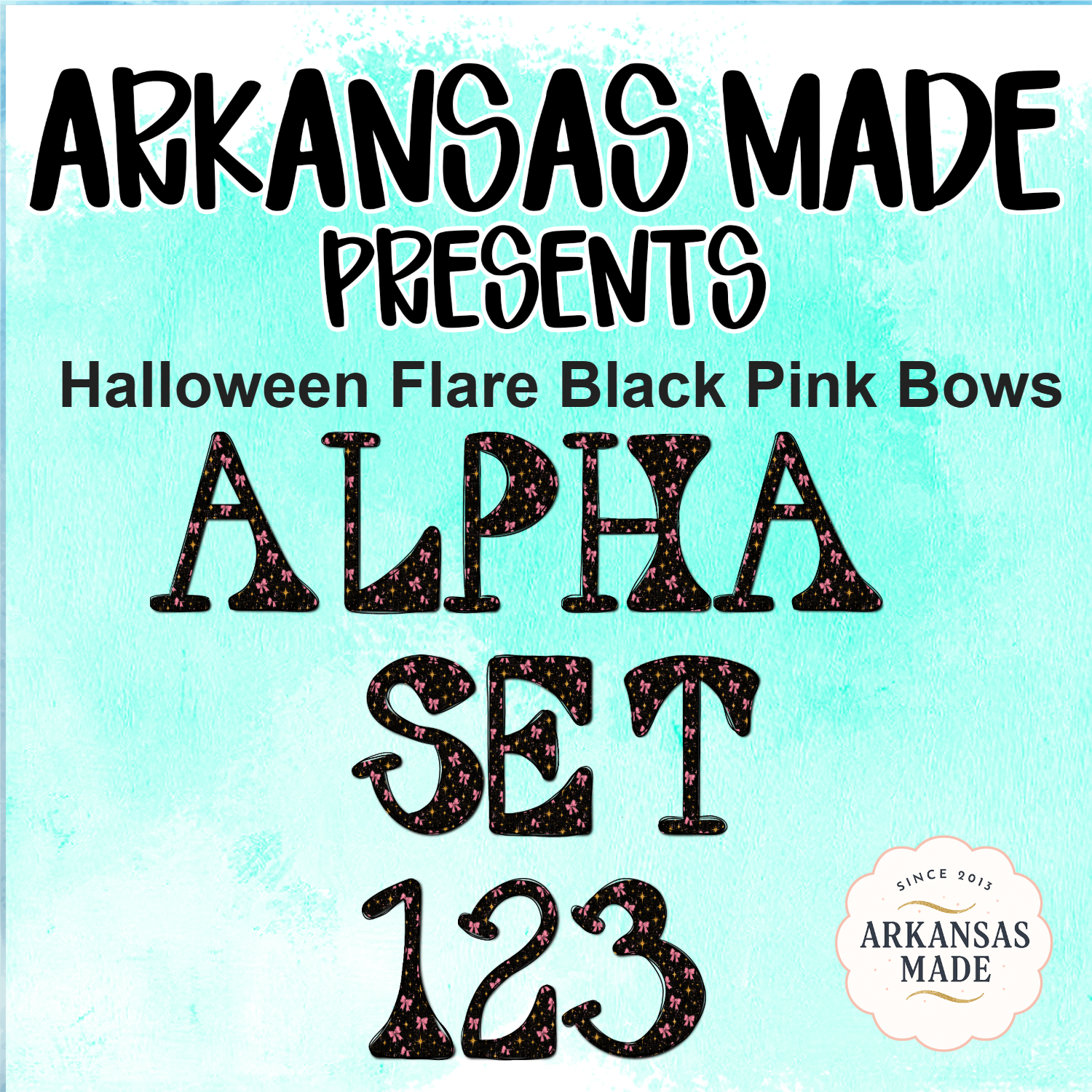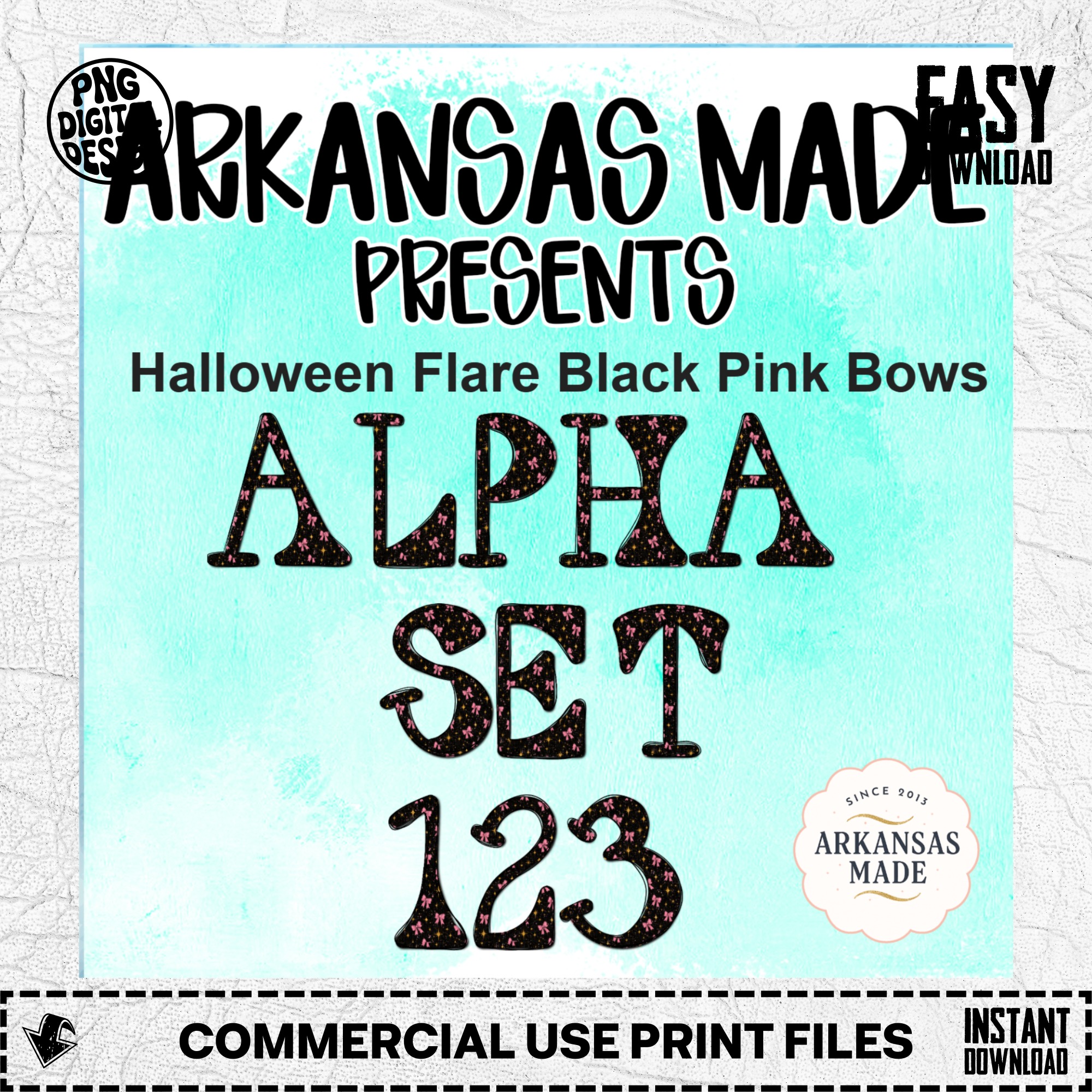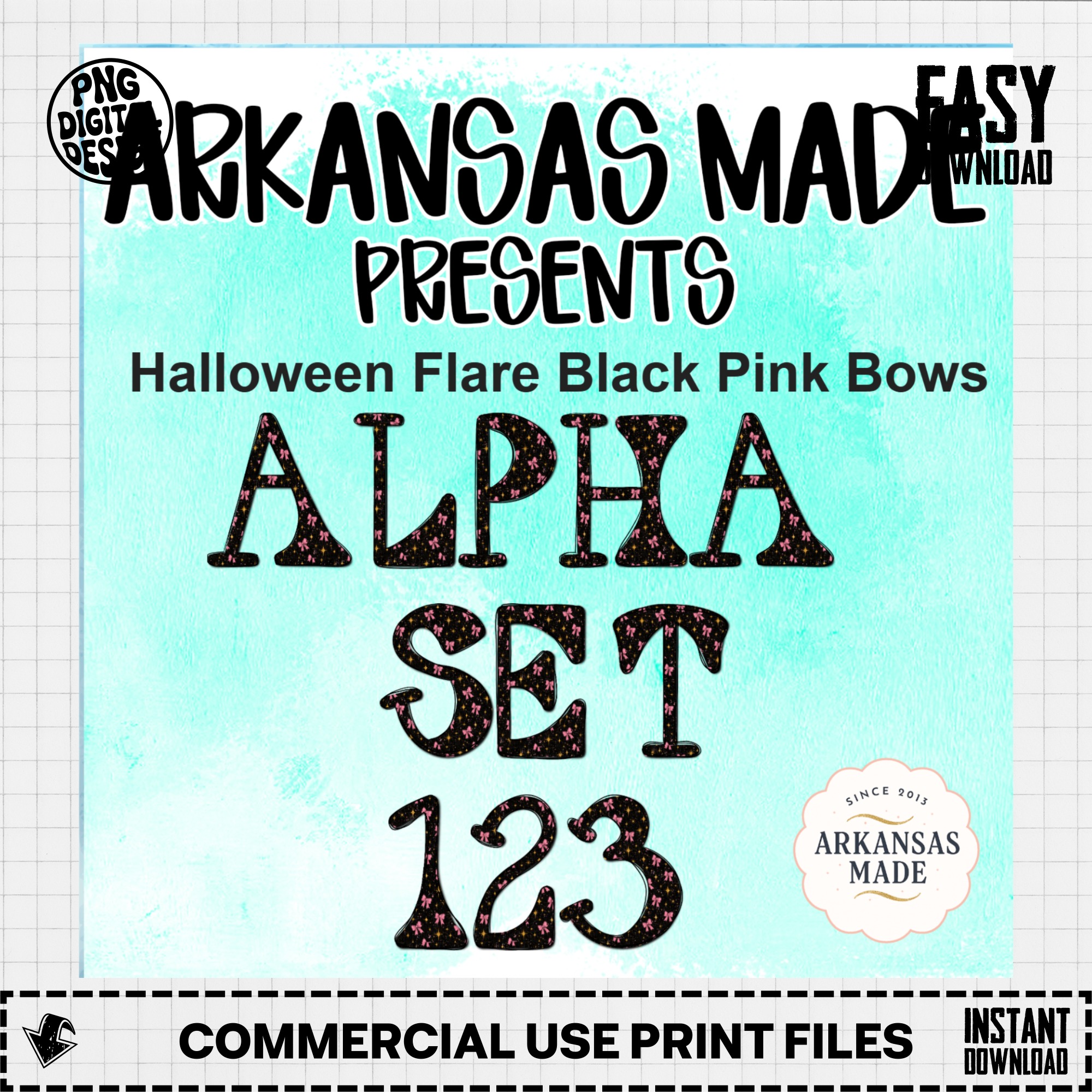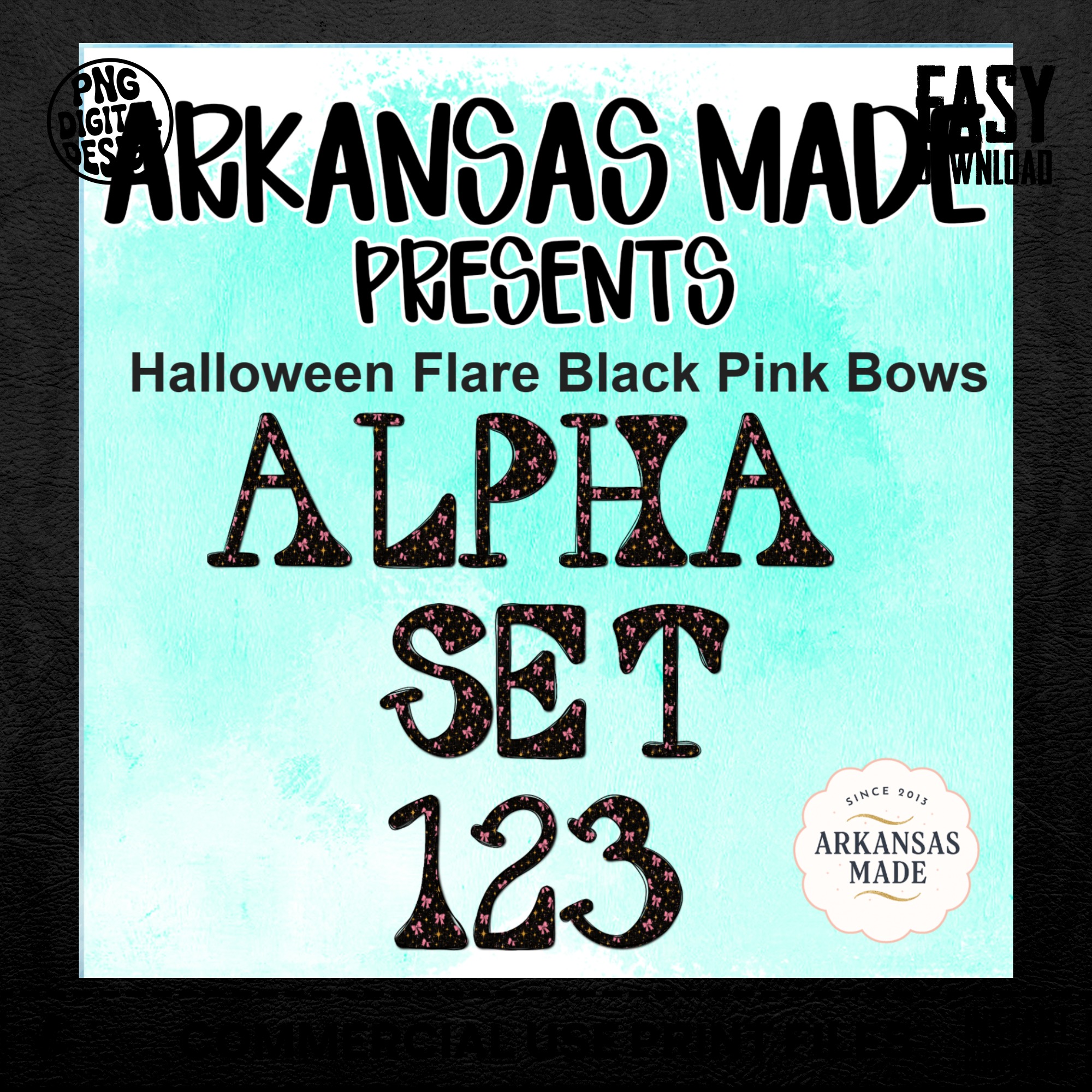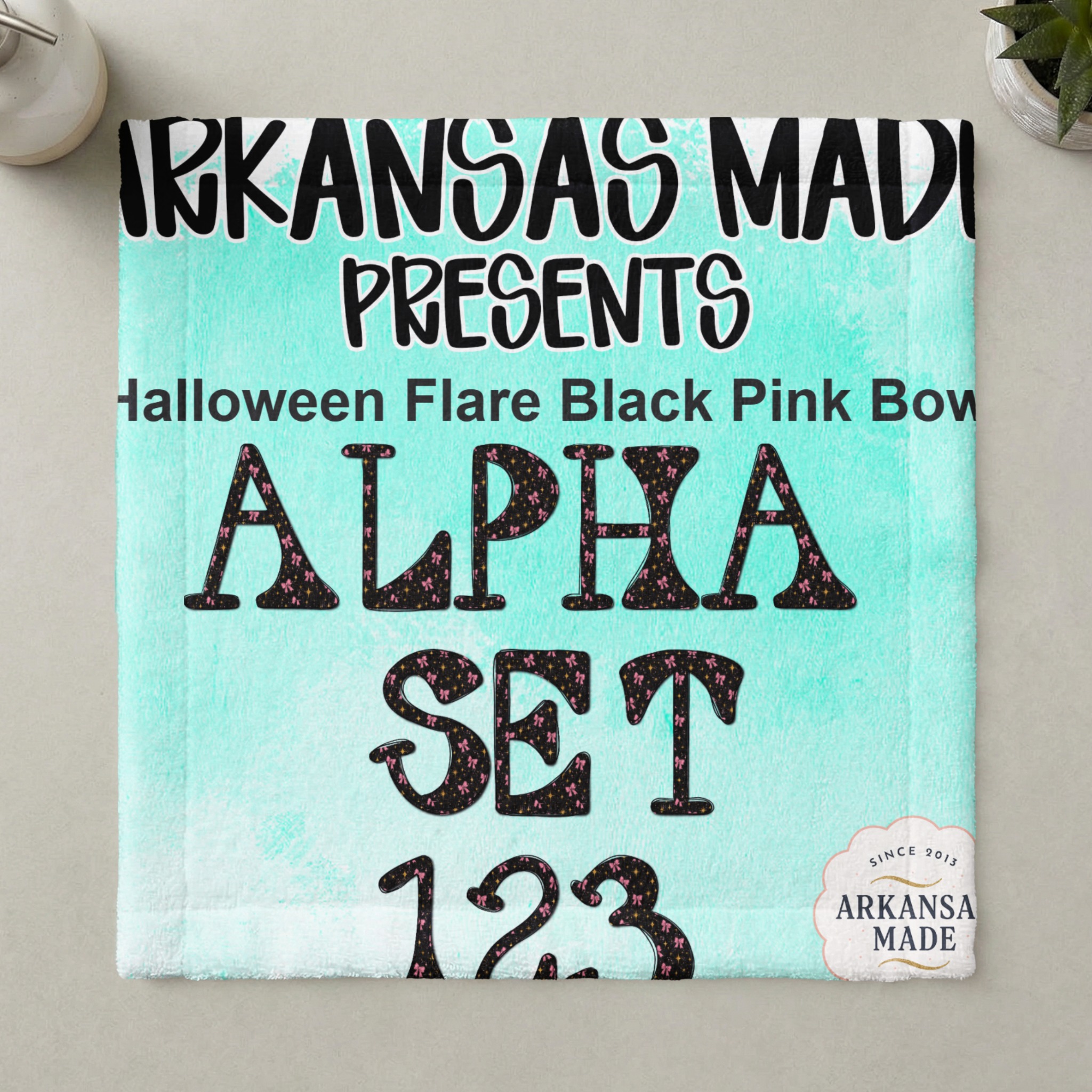
Unleash your creativity this Halloween with our enchanting Halloween Flare Black Pink Bows Alpha Set 123, a cute collection of Halloween digital alpha PNGs! This unique alphanumeric set features darling pink bow and faux gold speck patterns on a black background, perfect for adding a chic, glam, and slightly spooky flair to your projects. Ideal for crafters, designers, and DIY enthusiasts creating unique sublimation prints, T-shirts, stickers, or digital art for the spooky season. Infuse your Halloween designs with trendy style!